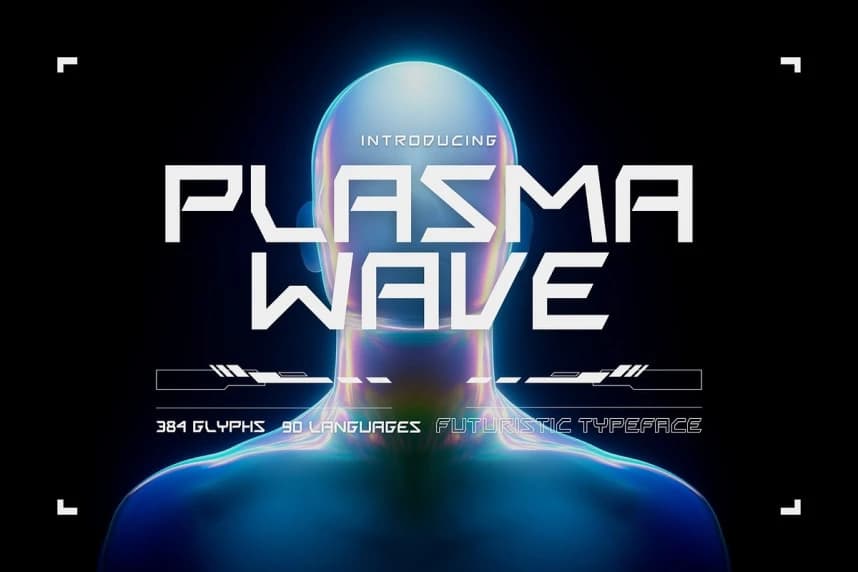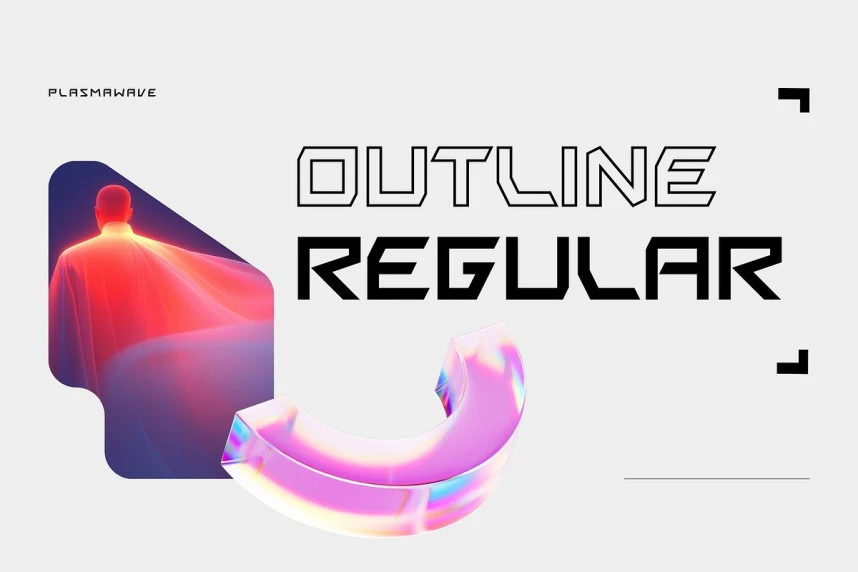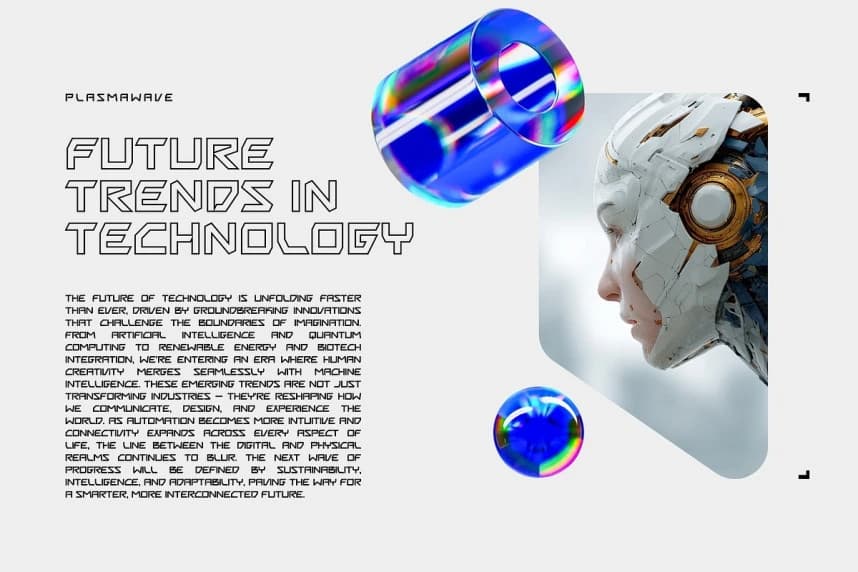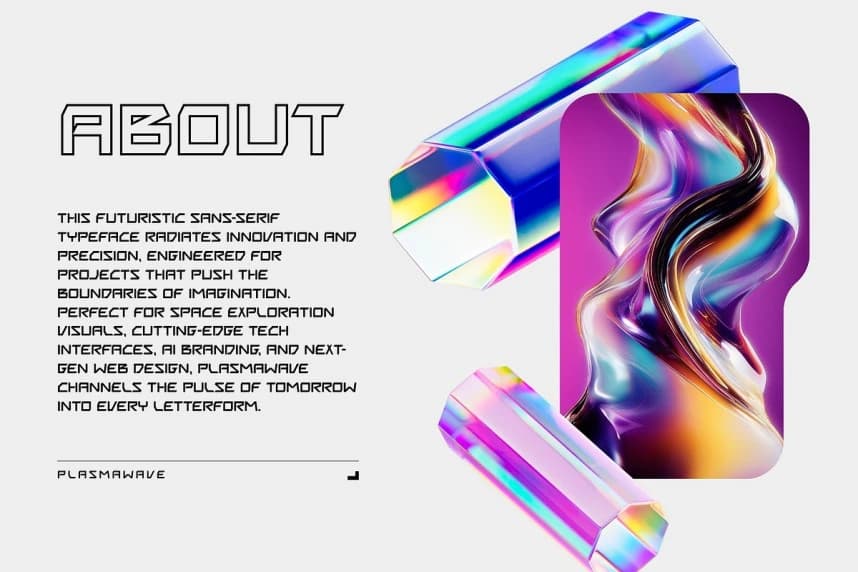
Plasmawave Font
Plasmawave Font - This futuristic sans-serif typeface radiates innovation and precision, engineered for projects that push the boundaries of imagination. Perfect for space exploration visuals, cutting-edge tech interfaces, AI branding, and next-gen web design
Plasmawave
Plasmawave Outline
Plasmawave Regular